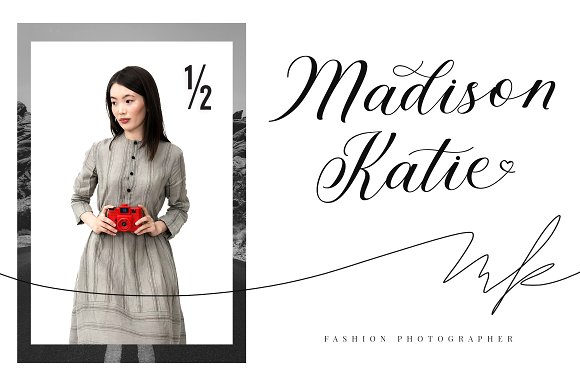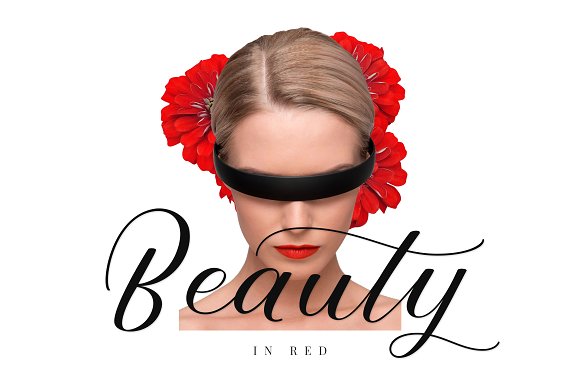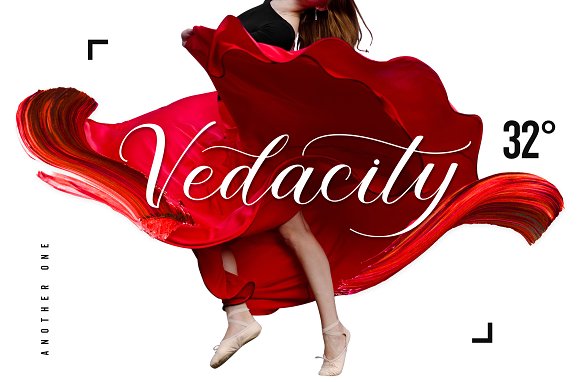
Gasstock Script Font
Gasstock Script Font, this is a Textured Natural Style and classy style with a clear style and dramatic movement. This font Gasstock is great for your next creative project such as logos, printed quotes, invitations, cards, product packaging, headers, Logotype, Letterhead, Poster, Design this font is great for your creative projects such as watermark on photography, and perfect for logos & branding, invitation,advertisements,product designs, stationery, wedding designs,label ,product packaging, special events or anything that need handwritting taste. That is has charming, authentic and relaxed characteristic more natural look to your text. You can activate 32 Ligatures glyphs OpenType panel.